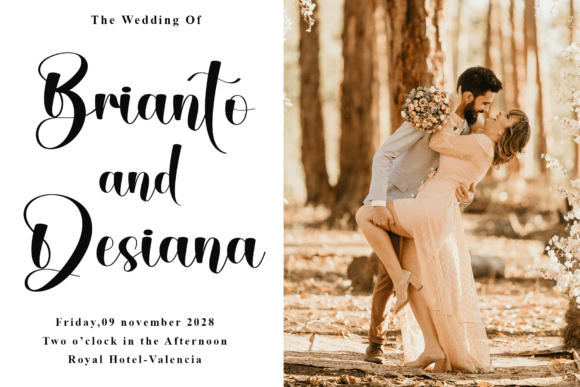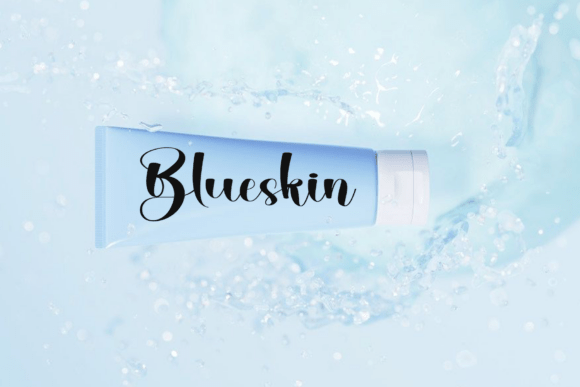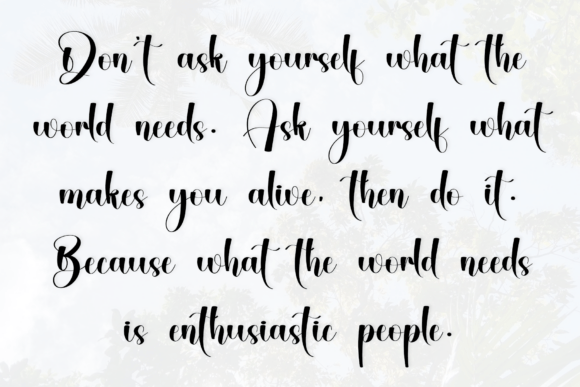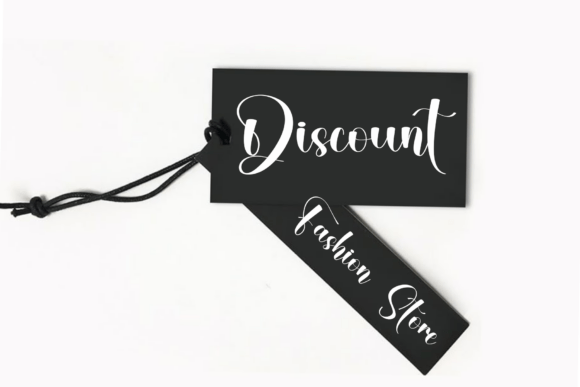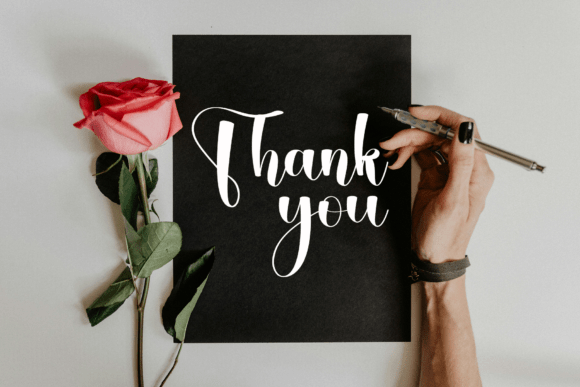
The Power of Healing Font
There’s something magical about watching your creative ideas come to life. You’ve spent hours brainstorming, sketching, and refining your concept, and finally, it’s time to bring it to the world. But what makes the difference between a good design and a great one? Sometimes, it’s just a matter of the right typography. That’s where Healing Font comes in – a beautiful, minimal handwriting font that can elevate your projects and make them truly stand out.
Healing Font is more than just a pretty face. It’s a versatile tool that can be used in a wide range of projects, from elegant invitations to modern logos. Its clean lines and elegant curves make it perfect for designers who want to add a touch of sophistication to their work. With Healing Font, you can create designs that are both visually appealing and emotionally resonant – and that’s what makes it truly valuable for designers.
Key Features of Healing Font
- Unique Character Set: Healing Font includes a wide range of characters, including letters, numbers, and symbols, designed to promote relaxation and well-being.
- High-Resolution Images: The font includes high-resolution images of nature scenes, such as flowers, trees, and landscapes, to create a calming atmosphere.
- Emotional Support: The font is designed to provide emotional support and comfort, with each character carefully crafted to promote relaxation and well-being.
Designer Review: Healing Font
Overall, I was excited to dive into the Healing Font, but my experience was a mixed bag.
- Unique Concept: The Healing Font’s concept of using typography to convey a sense of healing and wellness is refreshing and innovative.
- Customization Options: The font comes with a range of customization options, allowing designers to tailor the look and feel to suit their needs.
- Accessibility Features: The font includes features such as high contrast mode and clear typography, making it accessible to users with visual impairments.
- Limited Character Set: The font’s character set is somewhat limited, which may cause issues for designers working on projects that require a wide range of characters.
- Not Suitable for All Projects: While the font is perfect for wellness and self-care related projects, it may not be the best choice for other types of projects.
- Not Highly Versatile: The font’s design, while beautiful, may not be highly versatile and may not suit all design styles.
While the Healing Font has its limitations, it’s a unique and well-designed font that can add a touch of personality to projects related to wellness and self-care. With some careful consideration and planning, designers can work around the font’s limitations and create something truly special.
Tips for Getting the Most Out of Healing Font
Experiment with different font sizes, colors, and styles to achieve the desired look. Use the healing effect to create a sense of movement or energy in your text. Combine the healing font with other design elements, such as images or shapes, to create a visually appealing design.
Healing Font is ideal for use in wellness and self-care branding, such as yoga or meditation studios. It can also be used in healthcare and medical branding, such as hospitals or clinics. Additionally, it can be used in personal development and coaching branding, such as life coaches or therapists.